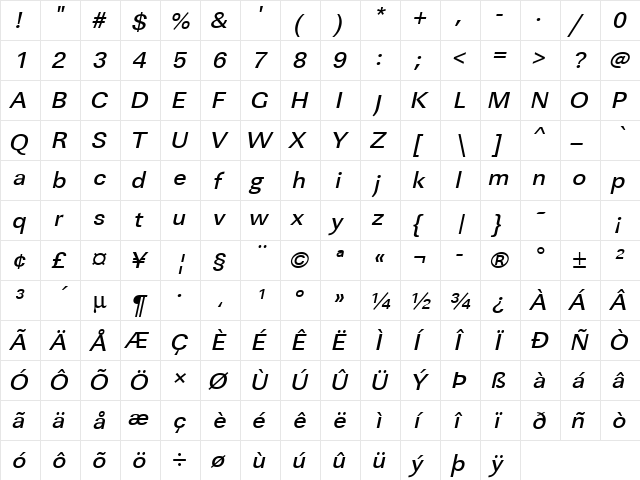
URWLinearTMedWid Oblique Font Preview
URWLinearTMedWid Oblique
URWLinearTMedWid Oblique Font Details
Design Context for URWLinearTMedWid Typeface
URWLinearTMedWid takes a measured approach to typography — its balanced proportions and neutral character make it a reliable workhorse for both digital and print work. The dynamic lean of this cut emphasises speed and emphasis in any layout.
Pro Tip: Try URWLinearTMedWid for annotation and caption copy alongside an upright companion — the contrast in angle creates a dynamic but ordered typographic system.